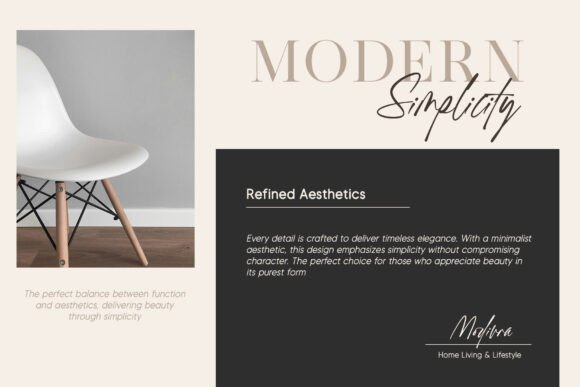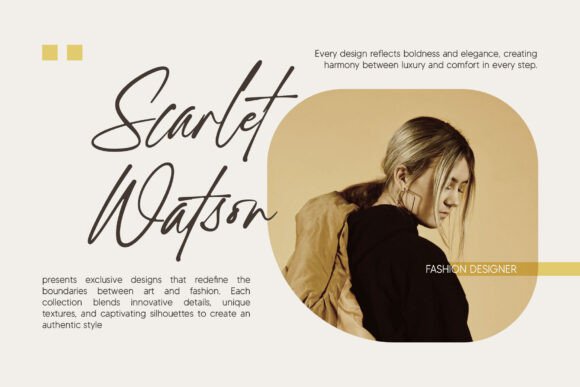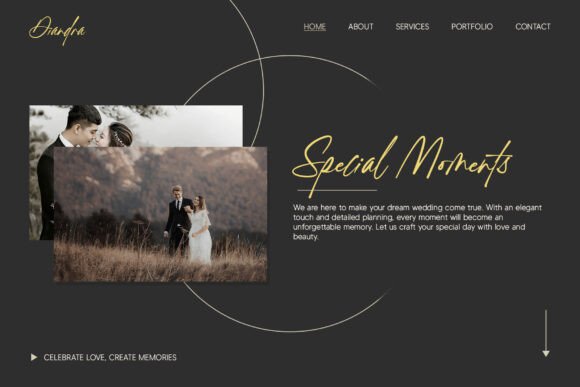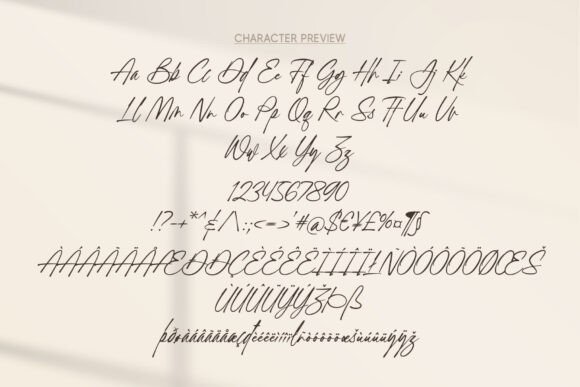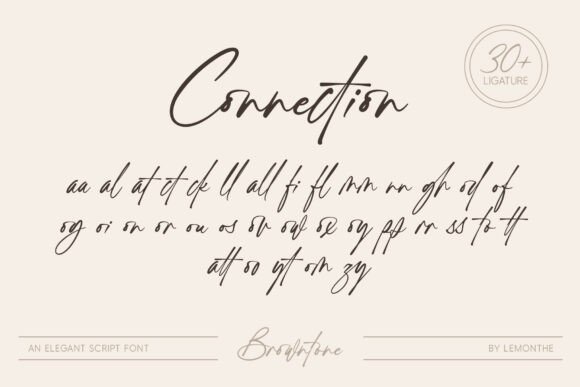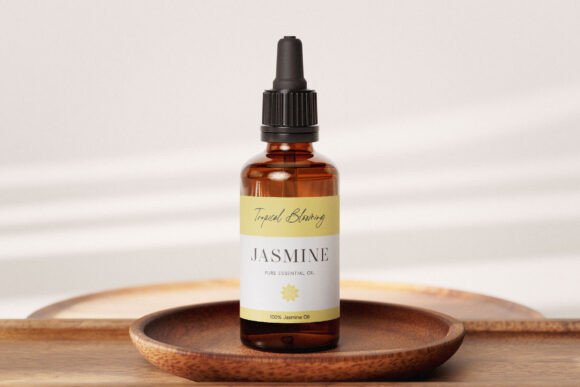
The Elegant Script Font That’s Stealing My Heart: Browntone
I still remember the design project that led me to discover Browntone. I was working on a luxury brand’s logo, and my client specifically asked for a font that exuded elegance and sophistication. After hours of searching, I stumbled upon Browntone, and it was love at first sight! 😍
This beautiful script font has been a game-changer for my designs ever since. Its smooth and natural letter flow creates a stunning handwritten impression that’s both luxurious and modern. In this article, I’ll share my honest review, a practical guide on how to use Browntone, and some helpful tips and tricks.
Honest Review: What I Love (and a Few Quirks)
• ✅ Elegant and sophisticated design that’s perfect for luxury brands
• ✅ Smooth and natural letter flow that creates a beautiful handwritten impression
• ✅ Highly versatile and can be used for various design projects, from logos to invitations
• ✅ Easy to read and understand, even at small font sizes
• ⚠️ Limited availability of certain characters and glyphs (but still a great selection overall)
• ⚠️ May not be the best choice for body text or long paragraphs (more suited for headings and titles)
Browntone comes with a range of OpenType features, glyphs, and stylistic alternates that can enhance your designs. Here are a few tips on how to access and use them:
• Use glyphs to add decorative elements, such as flourishes and swashes, to your text
• Experiment with stylistic alternates to create unique and customized text
The Story Behind Browntone: Designer Inspiration
Browntone was designed with the goal of creating a luxurious and modern script font that’s both elegant and sophisticated. The designer drew inspiration from classic calligraphy and handwriting, with a focus on smooth and natural letter flow. The result is a stunning font that’s perfect for a range of design projects.
Q: What type of projects is Browntone best suited for?
A: Browntone is ideal for luxury brands, high-end products, and design projects that require a sophisticated and elegant look.
Q: Can I use Browntone for body text?
A: While Browntone is a beautiful font, it’s not the best choice for body text or long paragraphs. It’s better suited for headings and titles.
Q: Is Browntone available in different font weights?
A: Yes, Browntone comes in a range of font weights, from light to bold.